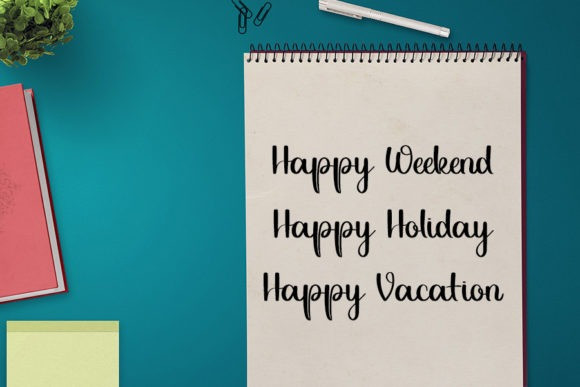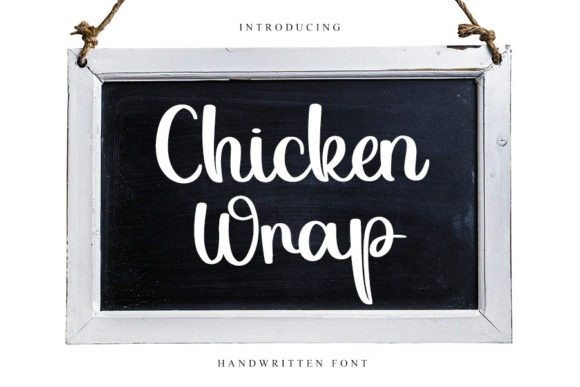
Chicken Wrap Font
Chicken Wrap Script Font is a stylish handwritten font with a contemporary atmosphere and impeccable form, inspired by a timeless classic calligraphy. Not too thin and not too thick, balanced and varied, this font was designed to enhance the beauty of your projects.